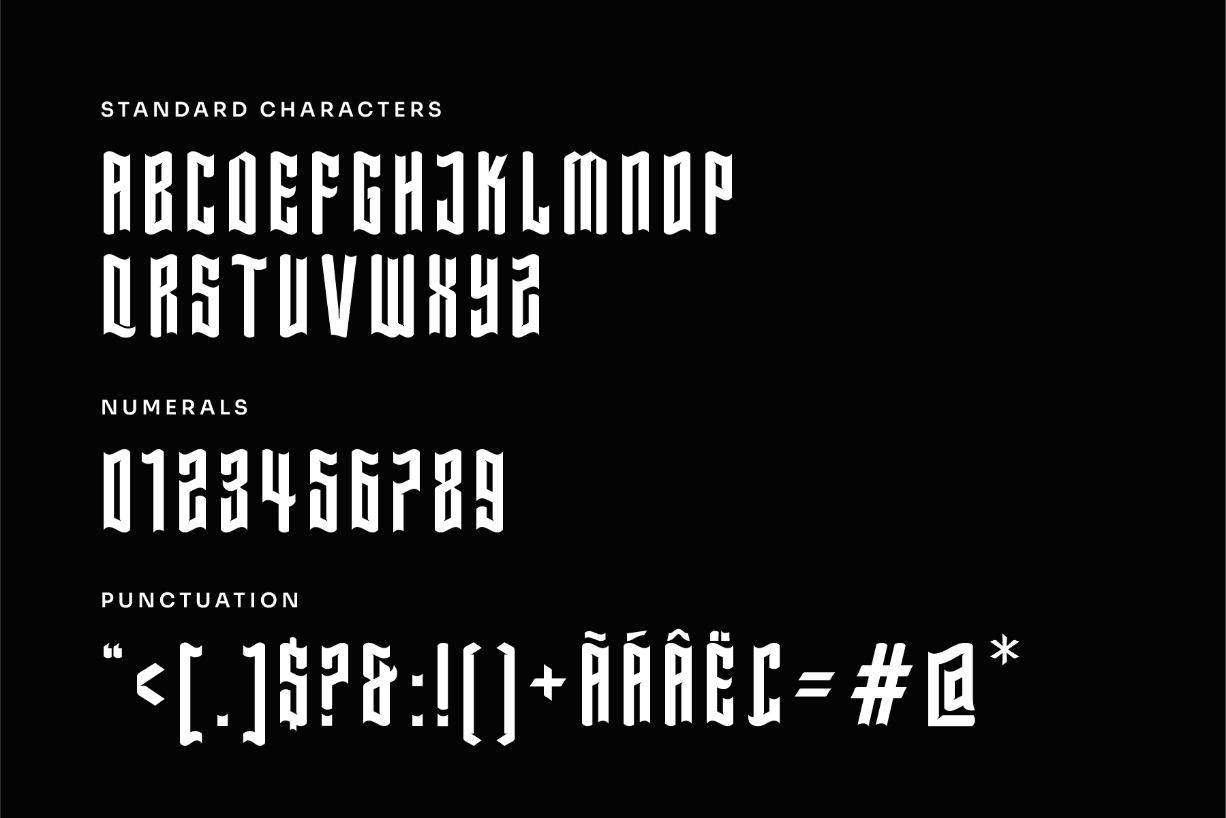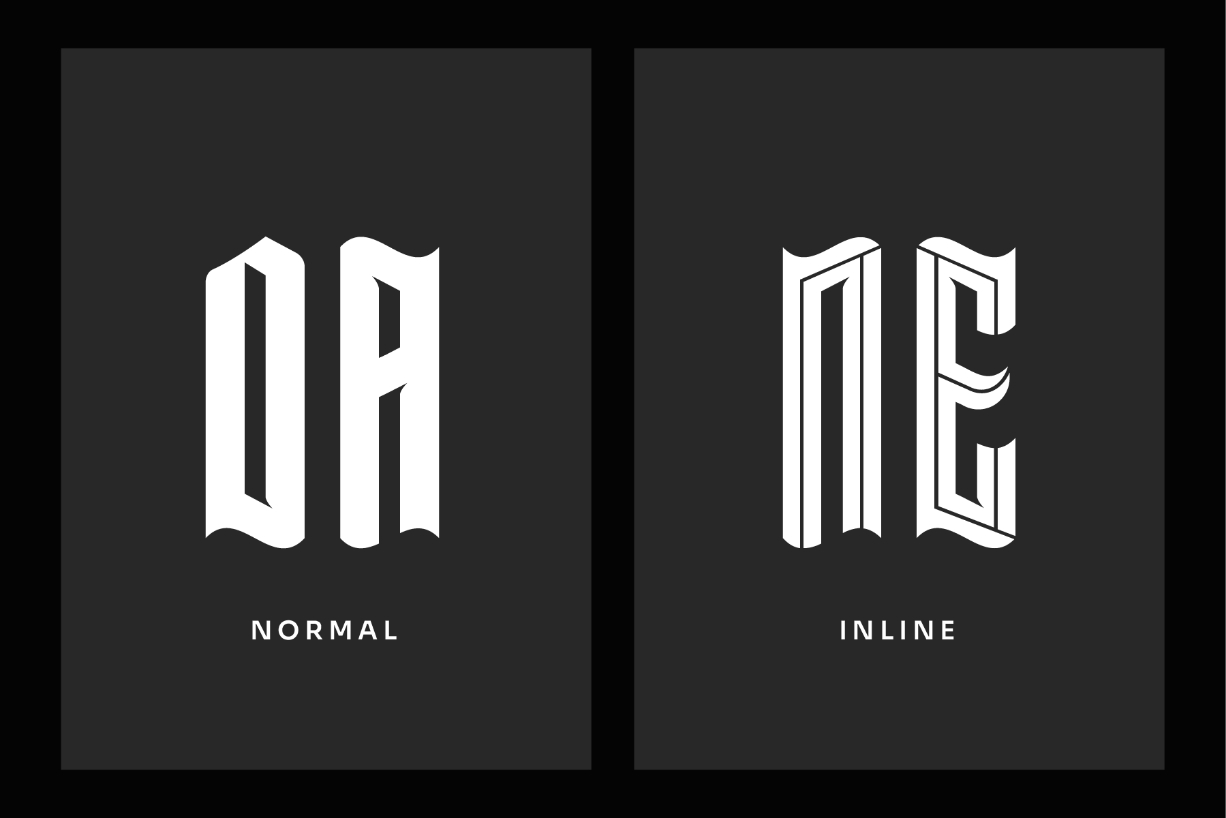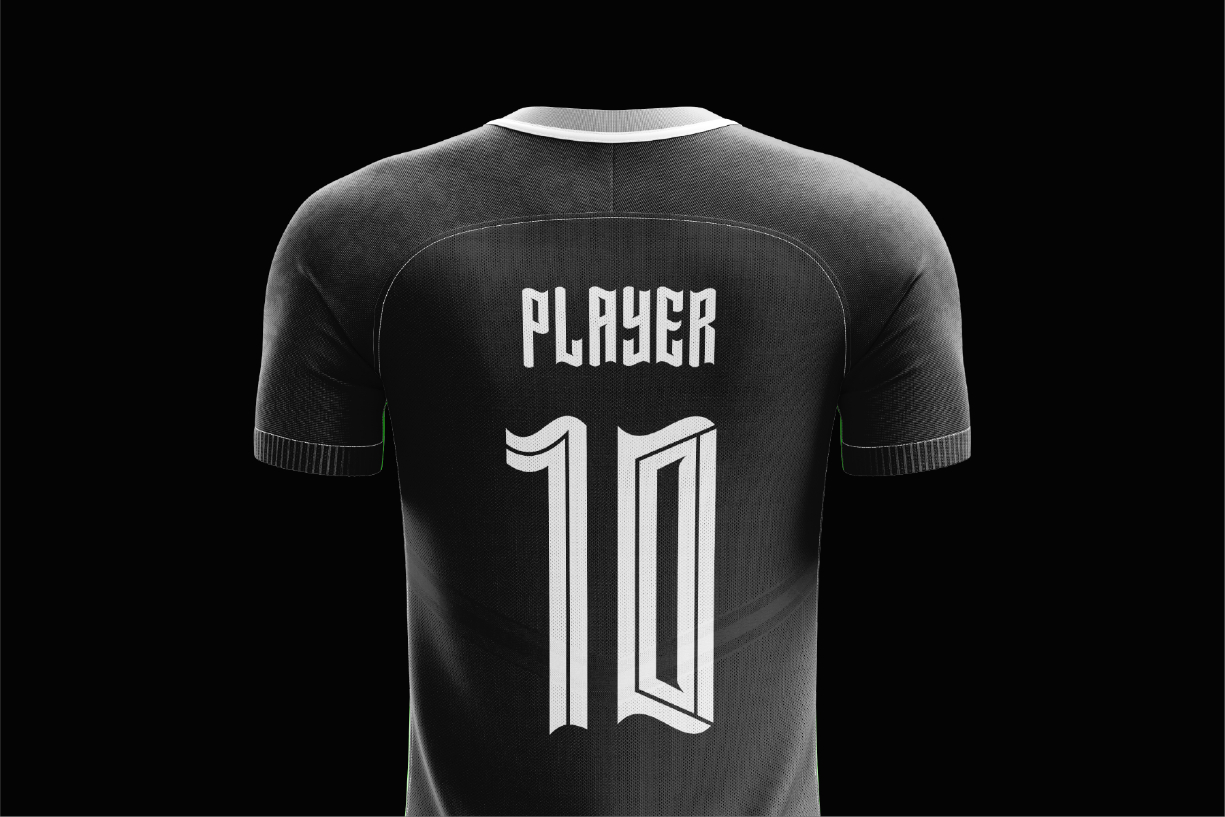
About Darkstream Font
Darkstream typography is a contemporary variation of the famous Blackletter typography. Darkstream’s lettering is highly stylized, with intricate strokes that resemble arabesques and gothic design elements. The sinuous curves and sharp angles of the letters create a sense of fluidity and drama, as if the words are dancing on the page.